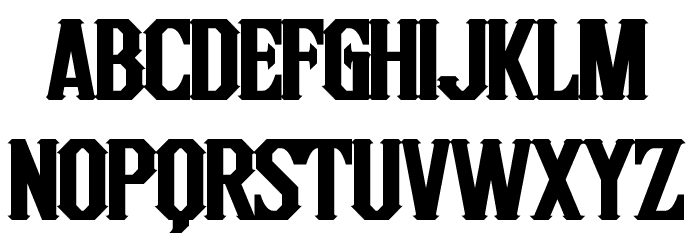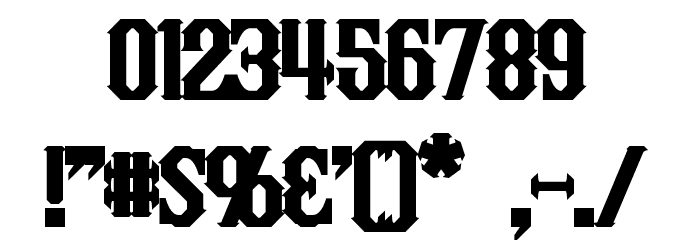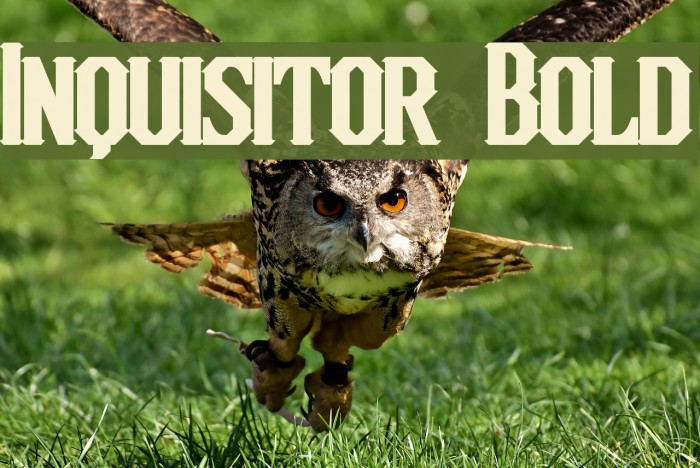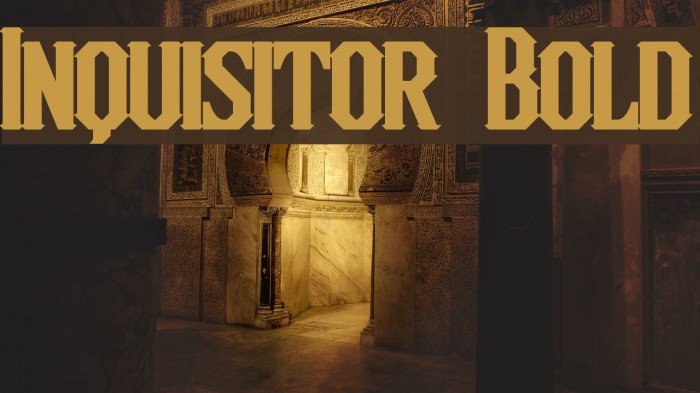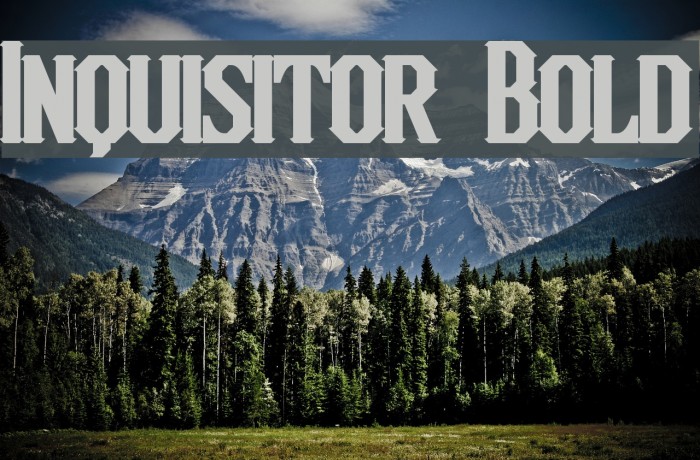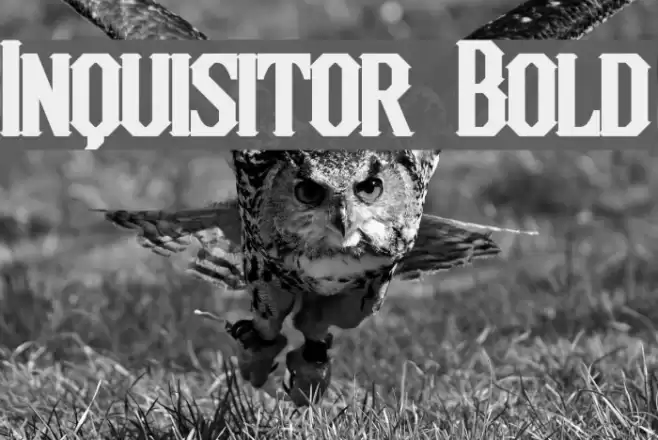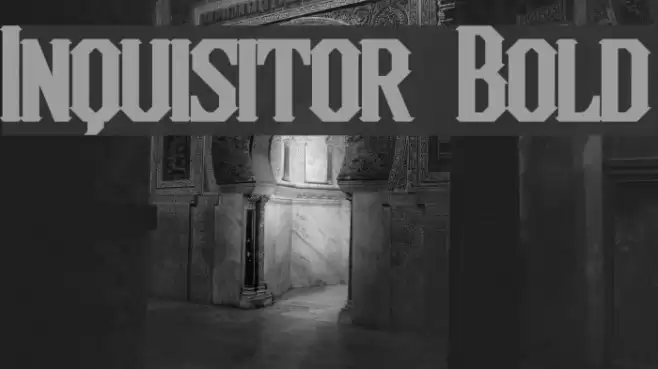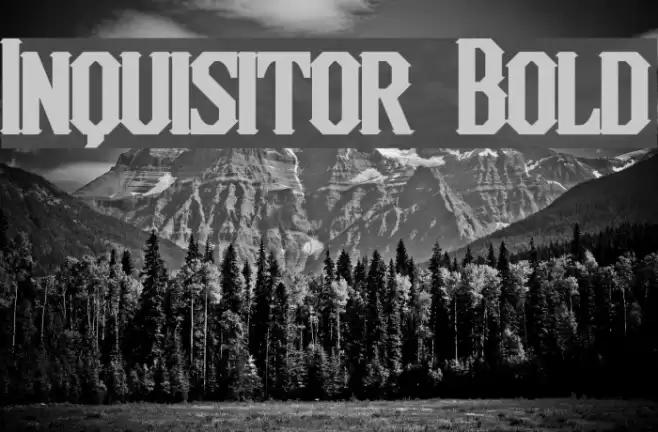
Inquisitor Bold Font
This font features a bold and striking design with sharp, angular edges and a strong presence. The characters are uniformly wide, giving it a blocky appearance that commands attention. The uppercase letters are particularly prominent, with a consistent height and width that creates a cohesive look. The numbers and special characters maintain the same bold style, ensuring a uniform appearance across all text. This font's unique style is reminiscent of gothic or medieval themes, making it ideal for projects that require a dramatic and impactful typeface.
A bold, angular font with a gothic, medieval flair.
- Proposed Projects: Ideal for posters, video game titles, branding for edgy or gothic-themed products, and any design requiring a bold, dramatic typeface.